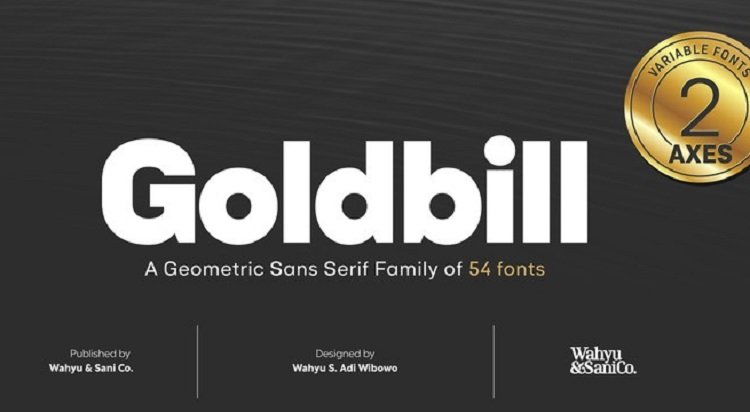
Goldbill Sans Font Family
This is a modern sans serif font family, A hand drawn font with caps & variants of the caps in the lowercase letters, numbers & symbols. This font is controlled and modern touch. Hard line balance and smooth curves.
This font is perfect to add a hand drawn touch to any project! Introducing Goldbill Font. It’s modern sans serif typeface which designed based on geometric shapes.
It is not just another geometric typeface, the uppercase letters were designed to have more squared form instead of circular and the lowercase retain the circular looks. It was designed with 2 axes variable; x-height and weight that generates 54 fonts with 3 different x-heights and 9 different weights.
The basic version of Goldbill is the best for text, while the Goldbill XS with the narrowest x-height is ideal for display text, logo, etc, and the one with the largest x-height, Goldbill XL would be good for heading, shorter paragraph text or web font. Goldbill type family with its 3 different x-heights would be a great type system for any modern graphic design and typographic work.